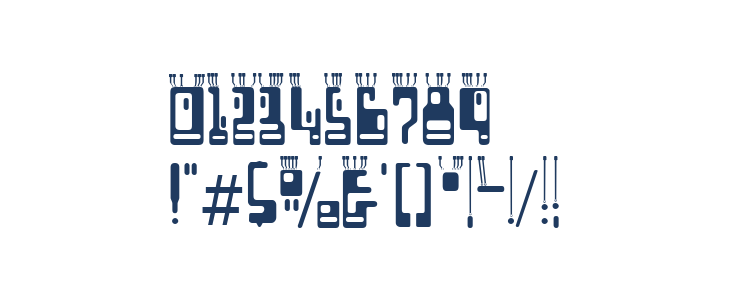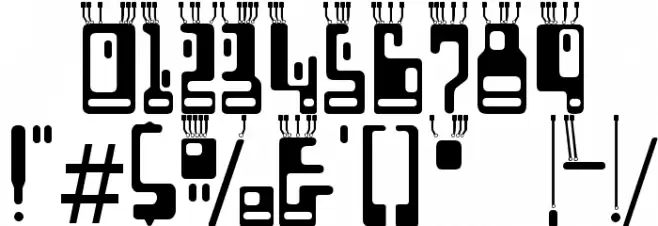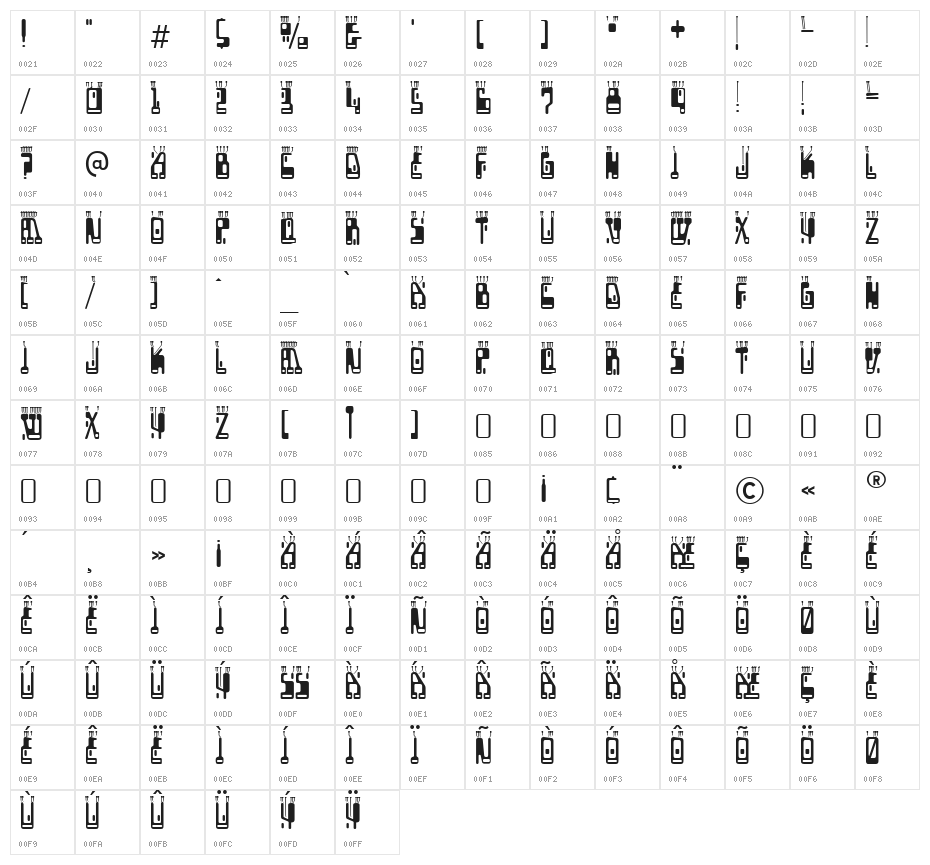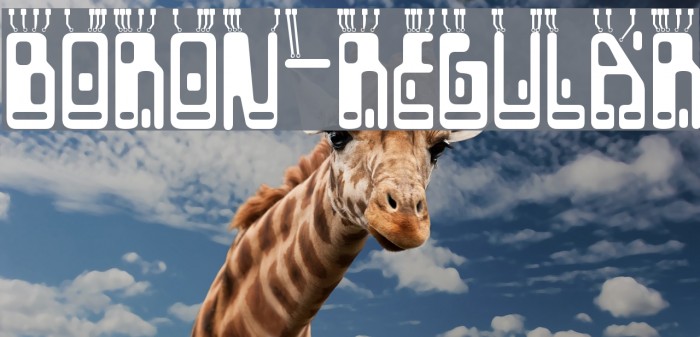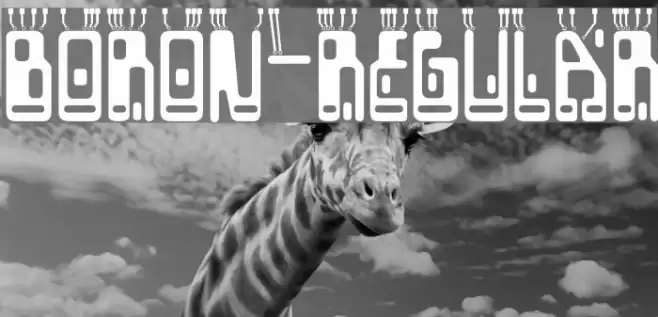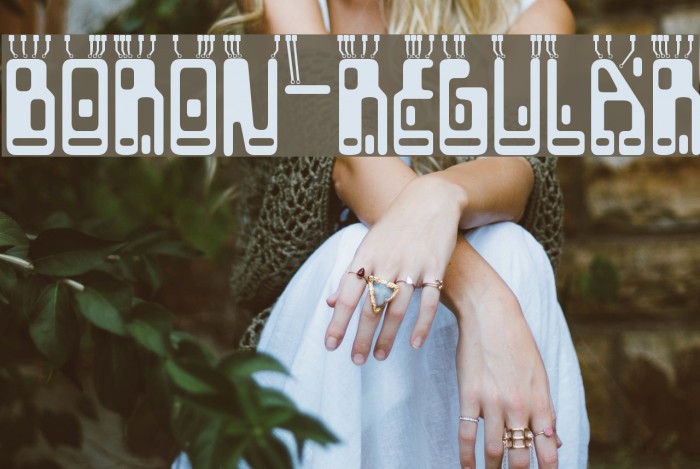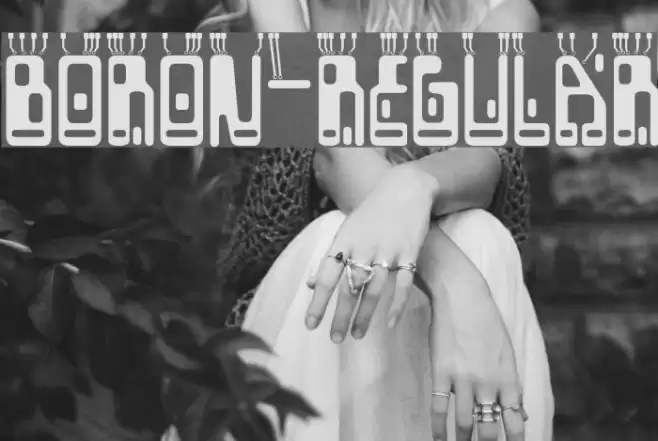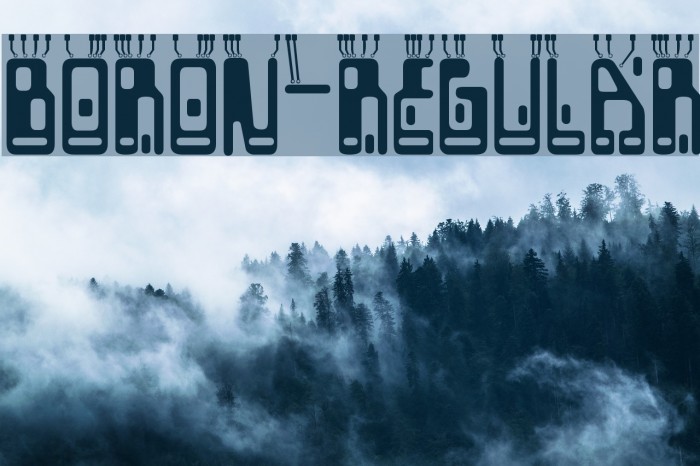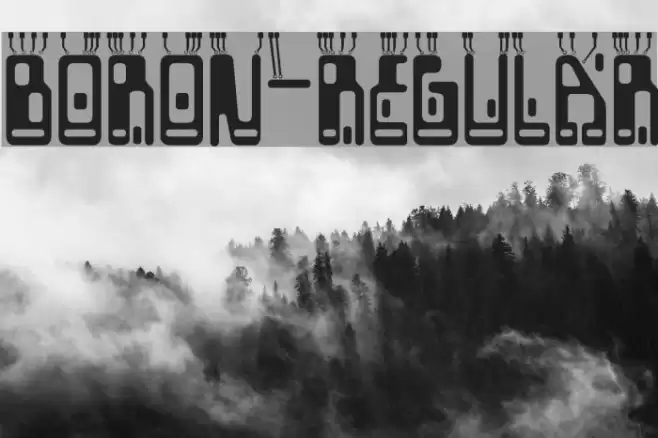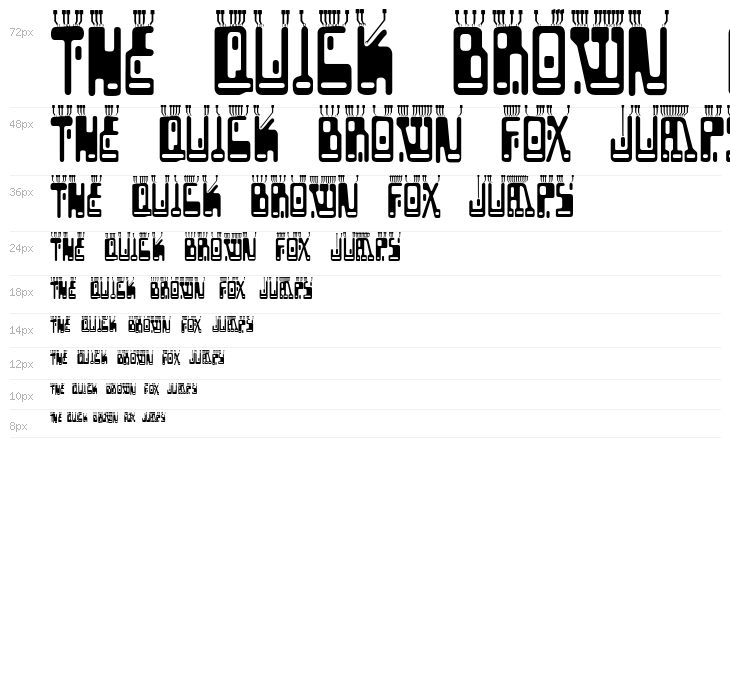
Boron-Regular Font
Boron-Regular Description
This font features a highly decorative and futuristic design, characterized by its unique and intricate detailing at the top of each character. The letters are bold and blocky, with a distinct mechanical or circuit-like appearance. The uppercase and lowercase letters maintain a consistent style, with rounded edges and uniform thickness, creating a cohesive look. The numerals and special characters follow the same design principles, ensuring visual harmony across all elements. This font's striking and unconventional style makes it stand out, ideal for projects that require a modern and tech-inspired aesthetic.
Overall StyleFuturistic, Decorative
Proposed ProjectsIdeal for tech-themed posters, sci-fi book covers, video game graphics, and branding for technology companies.